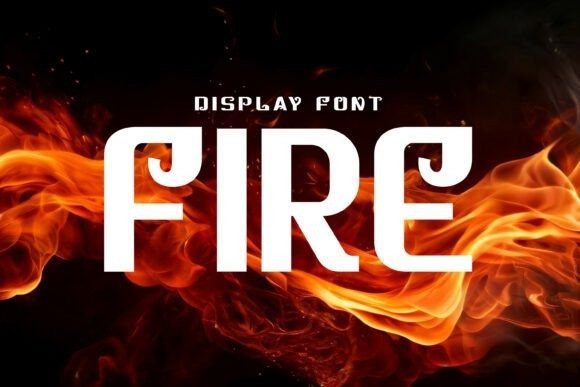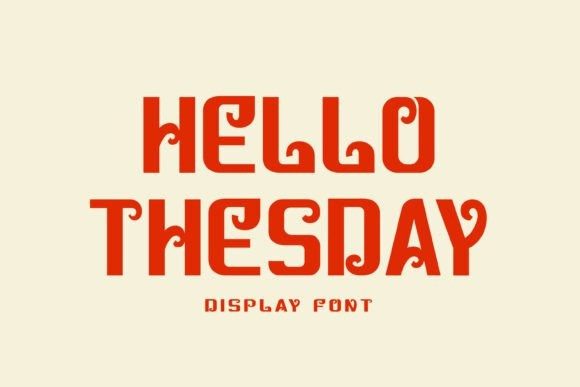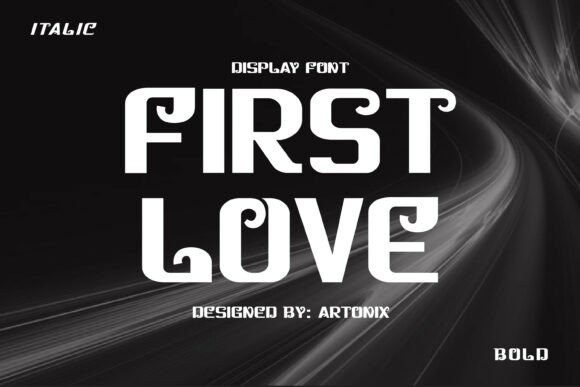
First Love Display Typeface
First Love Display Typeface  is a romantic display typeface full of warmth and personality. Its smooth curves and elegant shapes make it perfect for love quotes, invitations, and stylish branding projects. Available in Bold and Italic styles, each letter is crafted to bring emotion and elegance to your words. Whether for headlines or creative artwork, First Love adds a touch of charm and sophistication. Let your words shine with passion through First Love Display Font — a beautiful blend of emotion and design.